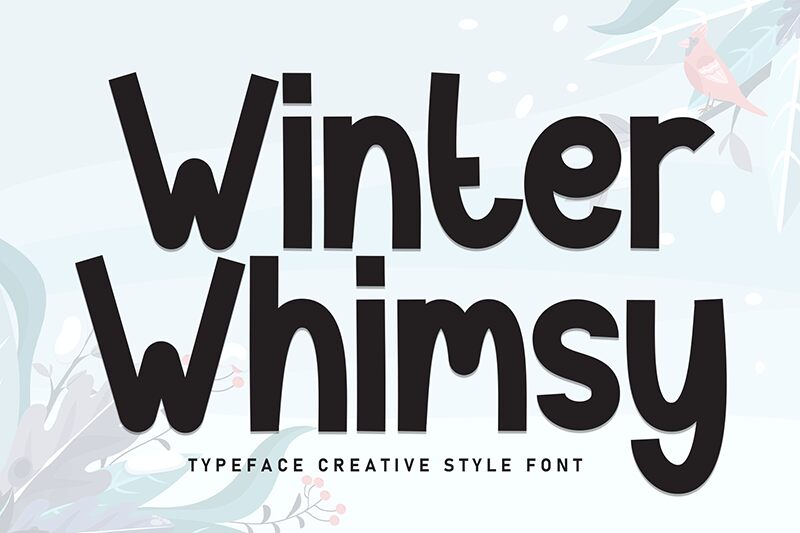
Winter Whimsy font
Winter Whimsy
This is a sweet and friendly handwritten display font. Cute and fun, this free font is ideal for creating wedding invitations, cards, or any other designs that require a playful touch.